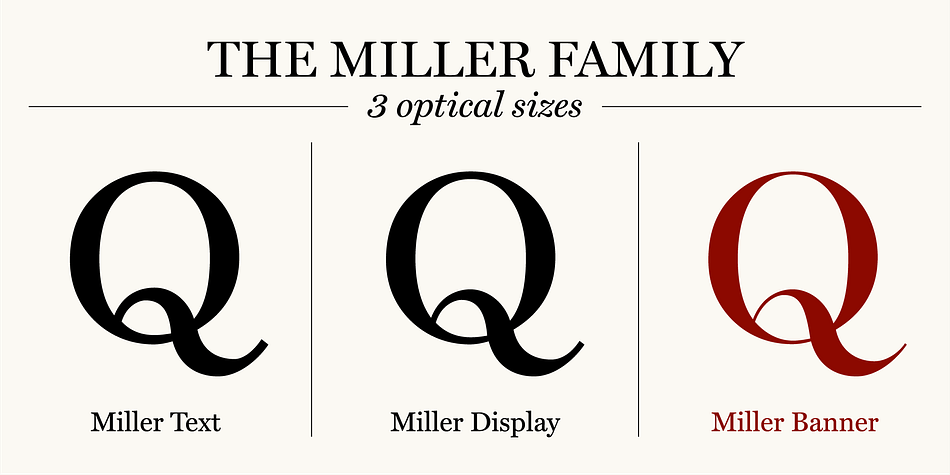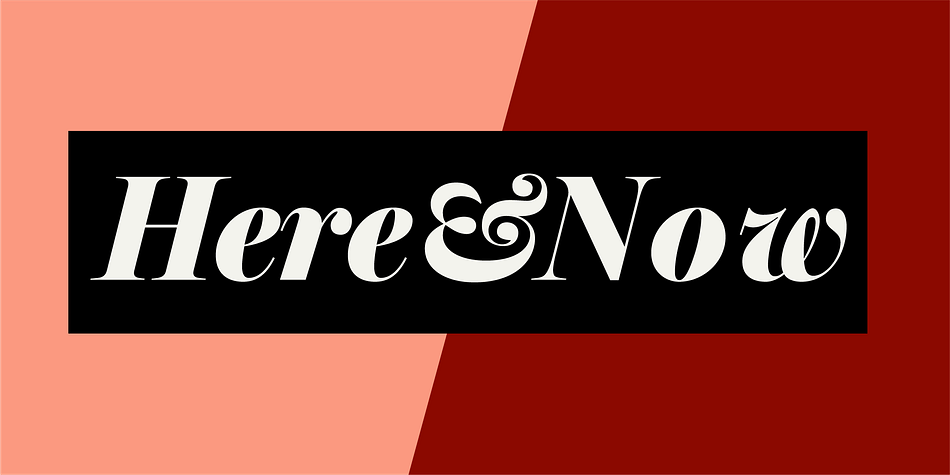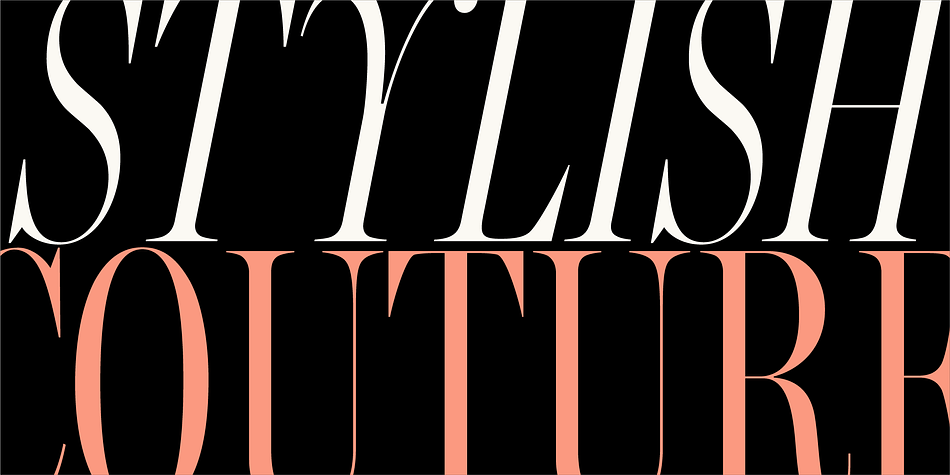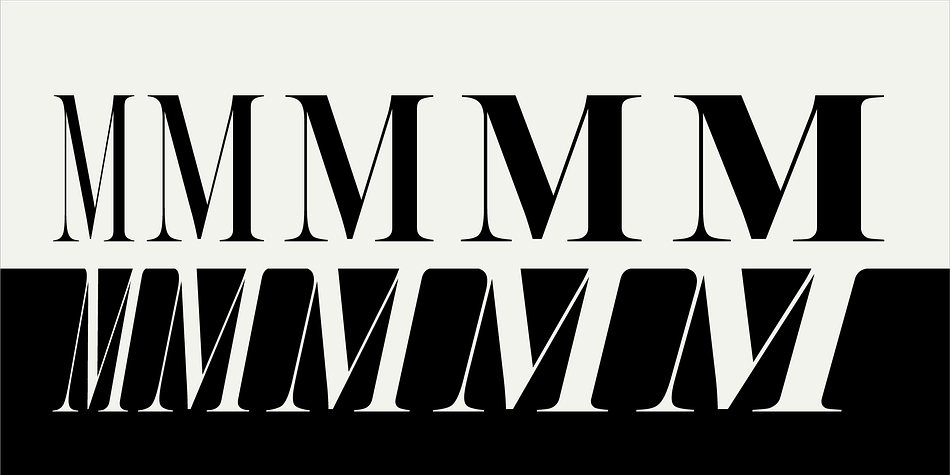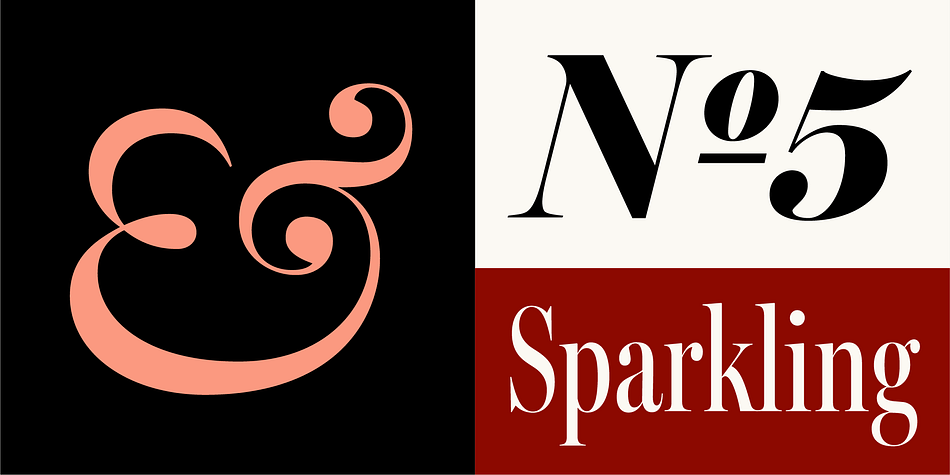
Designed by Matthew Carter, Miller Banner is a serif font family. This typeface has ten styles and was published by Carter & Cone.
Miller Banner takes Matthew Carter’s popular Miller series to new heights: 100pt and up, beyond any examples among the Scotch Roman’s historic antecedents. Optimized for very large settings, its hairlines have been sharpened and the contrast sweetened, lending grace and crisp elegance to banner headlines and titles.
Foundry | Carter & Cone |
Released | 1997 |
Designer | Matthew Carter |